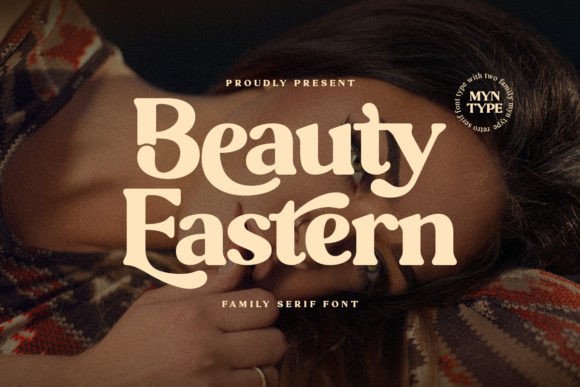
Introducing Beauty Eastern Font: Elevate Your Design with Elegance
In the world of typography, a font can make or break the aesthetic appeal of a design project. When it comes to creating a lasting impression, the right font choice is crucial. This is where Beauty Eastern Font comes into play – an elegant serif font designed to add a touch of sophistication and class to your projects. With its delicate yet balanced look, Beauty Eastern is the perfect choice for designers seeking to elevate their work.
The Beauty of Balance: Understanding Beauty Eastern Font
Beauty Eastern Font is characterized by its delicate and classy appearance, making it an ideal choice for projects that demand a high level of sophistication. The font’s design strikes a perfect balance between being too thin and too thick, resulting in a varied and visually appealing look. This balance is crucial in typography, as it ensures that the text is legible and easy to read, while also being aesthetically pleasing.
Key Features of Beauty Eastern Font
- Elegant Serif Design: Beauty Eastern boasts a classic serif design, which adds a touch of elegance to any project.
- Delicate yet Robust: The font’s delicate appearance is balanced by its robustness, making it suitable for a wide range of applications.
- Balanced and Varied: The font’s balanced and varied design ensures that it is legible and visually appealing.
The Design Philosophy Behind Beauty Eastern
The design of Beauty Eastern Font is rooted in the philosophy of creating a font that is not only aesthetically pleasing but also highly functional. The goal was to create a font that could be used in a variety of contexts, from luxury branding to editorial design, without compromising on elegance or legibility. The result is a font that is both versatile and sophisticated, making it an excellent addition to any designer’s toolkit.
Use Cases for Beauty Eastern Font
Beauty Eastern Font’s versatility makes it suitable for a wide range of applications, including:
- Luxury Branding: The font’s elegant and sophisticated look makes it perfect for luxury brands seeking to establish a high-end image.
- Editorial Design: Beauty Eastern is ideal for editorial design projects, such as magazines, newspapers, and books, where readability and aesthetics are paramount.
- Web Design: The font’s legibility and adaptability make it an excellent choice for web design projects, including websites and blogs.
Why Choose Beauty Eastern Font?
With so many fonts available, why choose Beauty Eastern? The answer lies in its unique combination of elegance, versatility, and legibility. Here are a few reasons why Beauty Eastern stands out:
- Unique Aesthetic: Beauty Eastern offers a distinctive look that sets it apart from more traditional serif fonts.
- High Legibility: The font’s balanced design ensures that it remains legible even at smaller sizes.
- Versatility: Beauty Eastern can be used in a variety of contexts, from print to digital media.
How to Use Beauty Eastern Font Effectively
To get the most out of Beauty Eastern Font, it’s essential to use it effectively. Here are a few tips:
- Pair with Complementary Fonts: Beauty Eastern pairs well with sans-serif fonts for body text and headings.
- Adjust Font Sizes: Experiment with different font sizes to create visual hierarchy and emphasis.
- Utilize Font Weights: Take advantage of the font’s various weights to add depth and contrast to your design.
Beauty Eastern Font is a versatile and elegant serif font that can elevate any design project. Its delicate yet robust design, balanced and varied appearance, and high legibility make it an excellent choice for designers seeking to add a touch of sophistication to their work. Whether you’re working on a luxury branding project, editorial design, or web design, Beauty Eastern is sure to impress.